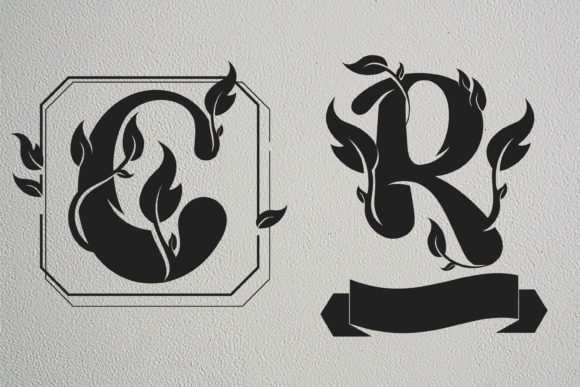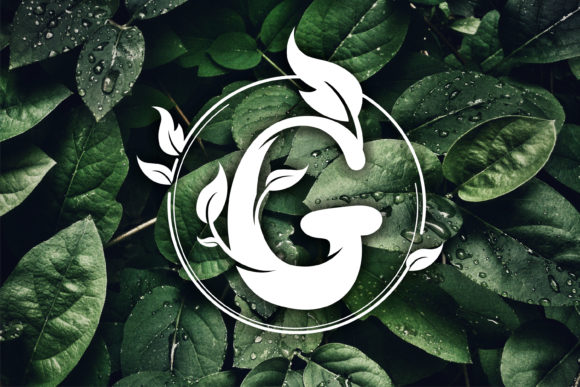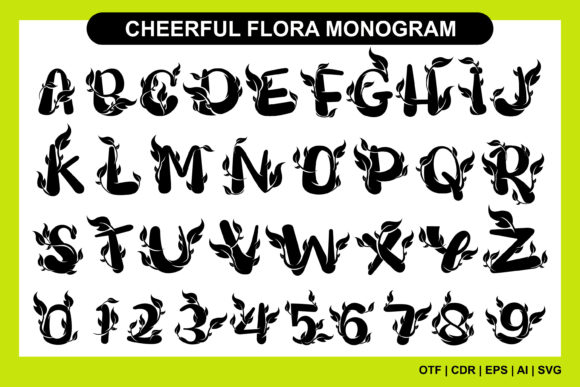
Introducing Cheerful Flora Monogram Font: Add a Touch of Freshness to Your Designs
Are you looking for a font that can add a touch of elegance and playfulness to your designs? Look no further than the Cheerful Flora Monogram Font. This sweet decorative font features lovely leaf ornaments that will make your designs stand out. In this article, we’ll explore the features and benefits of the Cheerful Flora Monogram Font and how you can use it to elevate your designs.
What is Cheerful Flora Monogram Font?
Cheerful Flora Monogram Font is a decorative font that is perfect for designers and crafters who want to add a touch of freshness to their designs. The font features lovely leaf ornaments that give it a unique and playful look. The font is designed to be used for a variety of purposes, including wedding invitations, stationary art, social media posts, and greeting cards.
Key Features of Cheerful Flora Monogram Font
- Unique Leaf Ornaments: The font features beautiful leaf ornaments that add a touch of elegance and playfulness to your designs.
- Decorative: The font is designed to be decorative, making it perfect for designs that require a touch of sophistication.
- Versatile: The font can be used for a variety of purposes, including wedding invitations, stationary art, social media posts, and greeting cards.
Benefits of Using Cheerful Flora Monogram Font
There are many benefits to using the Cheerful Flora Monogram Font in your designs. Here are a few:
- Adds a Touch of Elegance: The font adds a touch of elegance and sophistication to your designs, making them perfect for special occasions.
- Stand Out from the Crowd: The unique leaf ornaments in the font make it stand out from other fonts, ensuring that your designs get noticed.
- Perfect for Nature-Inspired Designs: The font is perfect for nature-inspired designs, such as wedding invitations, garden party invitations, and more.
- Easy to Pair with Other Fonts: The font is easy to pair with other fonts, making it versatile and easy to use.
Ideas for Using Cheerful Flora Monogram Font
Here are a few ideas for using the Cheerful Flora Monogram Font:
- Wedding Invitations: Use the font to create beautiful wedding invitations that feature a touch of elegance and sophistication.
- Stationary Art: Use the font to create beautiful stationary art that features a touch of freshness and playfulness.
- Social Media Posts: Use the font to create eye-catching social media posts that feature a touch of elegance and sophistication.
- Greeting Cards: Use the font to create cute greeting cards that feature a touch of freshness and playfulness.
In conclusion, the Cheerful Flora Monogram Font is a beautiful decorative font that can add a touch of elegance and playfulness to your designs. With its unique leaf ornaments and versatile design, it’s perfect for a variety of purposes, including wedding invitations, stationary art, social media posts, and greeting cards. Whether you’re a designer or a crafter, this font is sure to become a favorite in your collection.